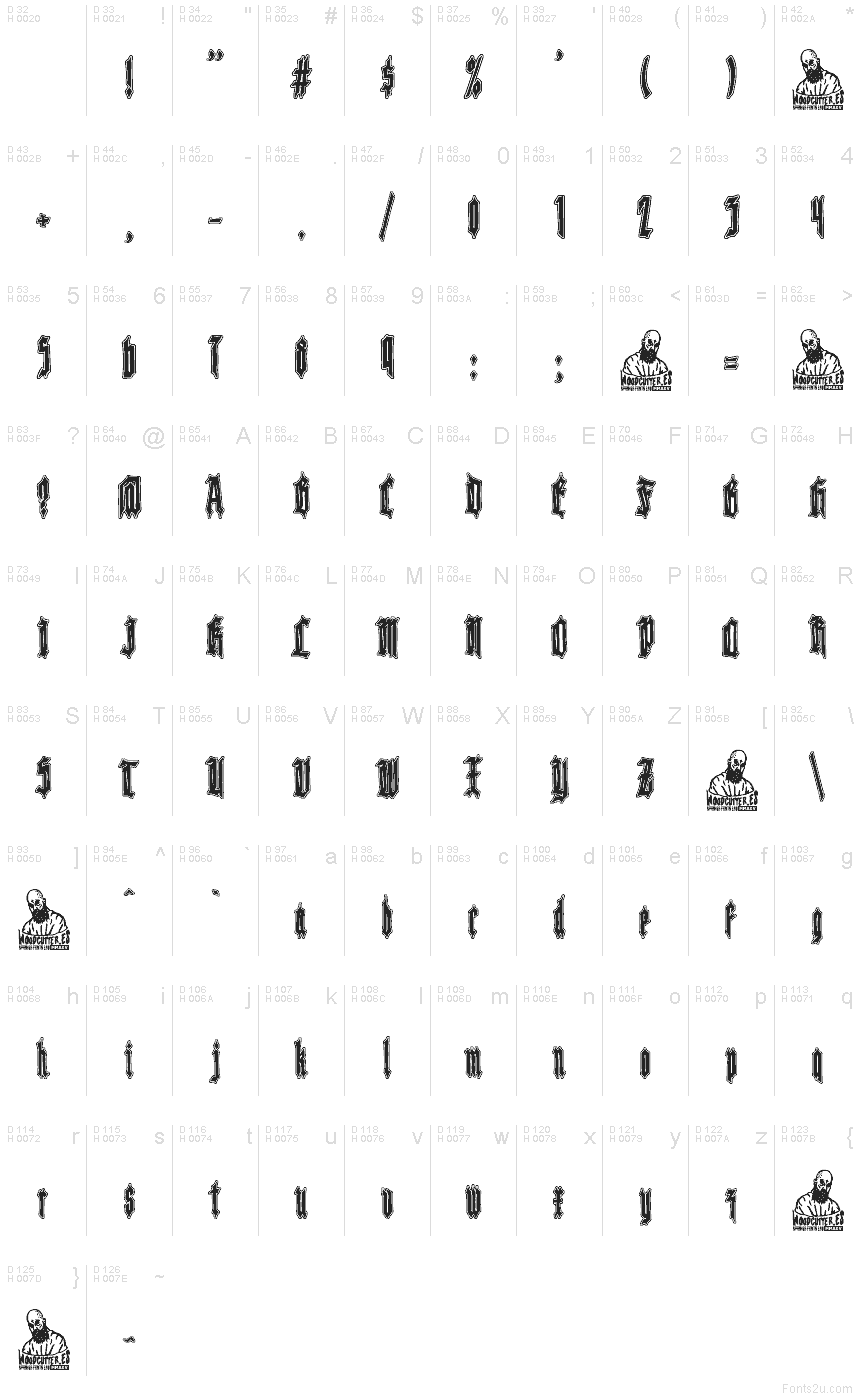
Killer Knight Contour
Killer Knight Contour font by Woodcutter is a free medieval gothic display font. Built within the Killer Knight family, its defining move is the carved, double-stroke contour: a bright inner channel wrapped in an inky black outline. The letters feel chiseled and spiky, like wrought iron caught in moonlight—dramatic, legible, and ready to punch through busy backgrounds without extra effects.
Using Killer Knight Contour, you can brand metal bands, stage Halloween posters, title dark‑fantasy games, dress renaissance‑faire signage, or add bite to tattoo‑inspired merch and craft beer labels. This free font shines at big sizes; let the contour breathe. Pair with a clean sans to handle body copy and keep the spotlight on those bold, serrated forms.